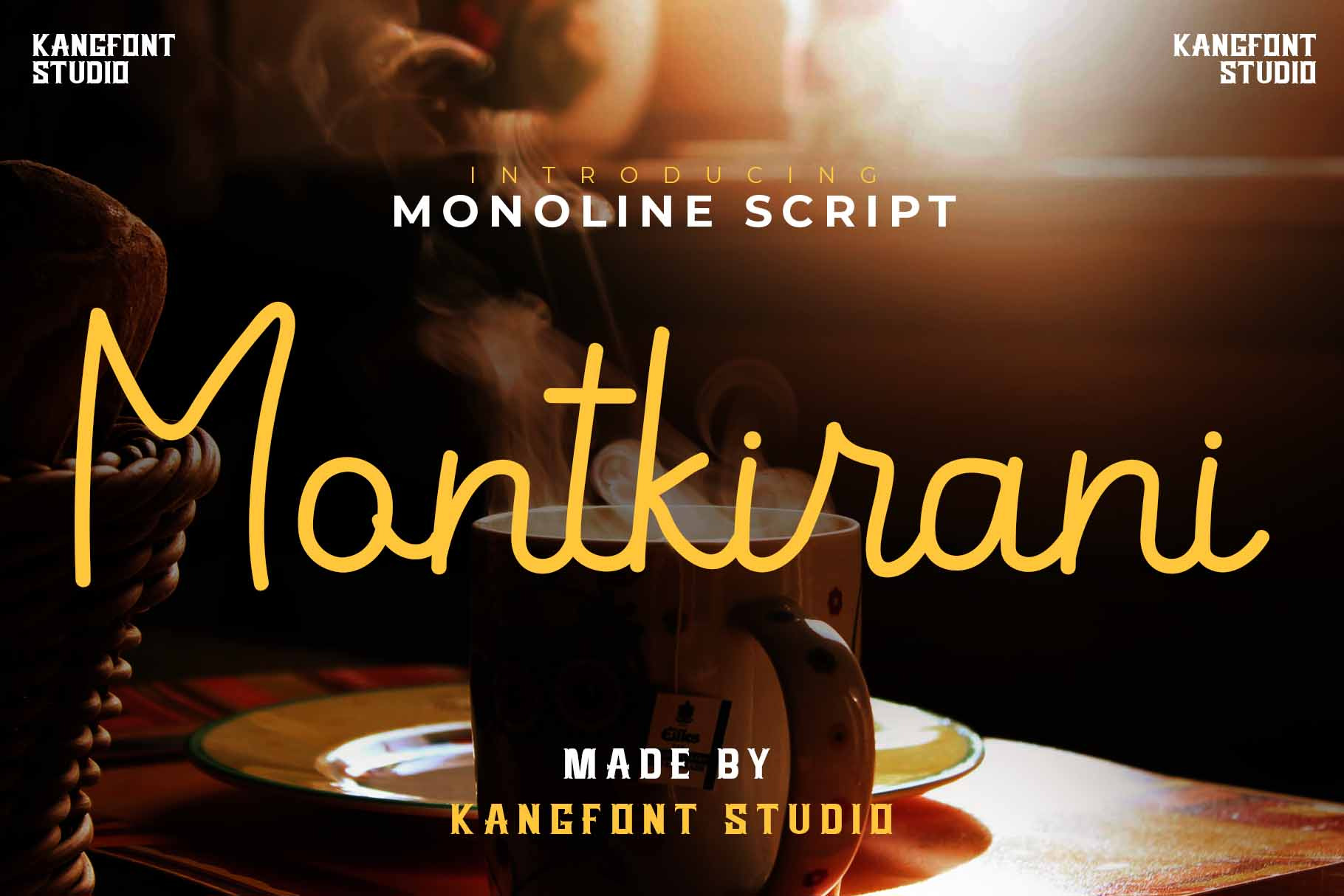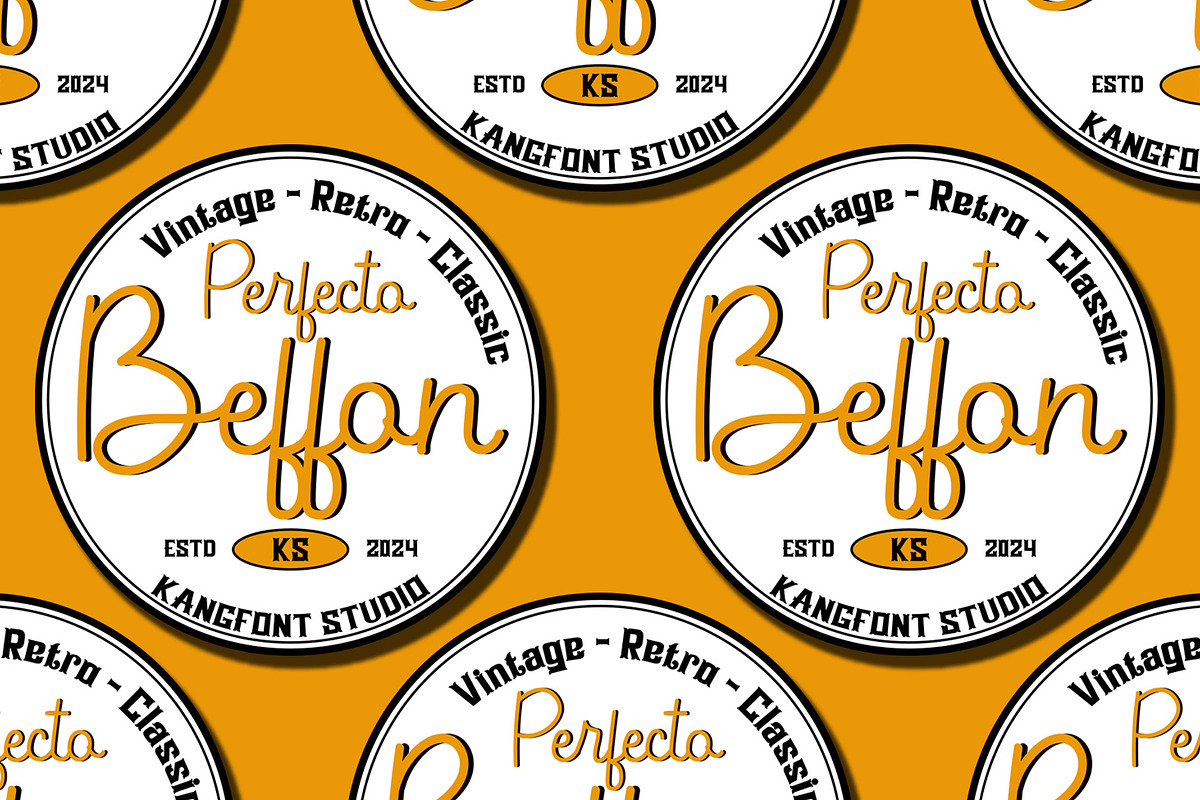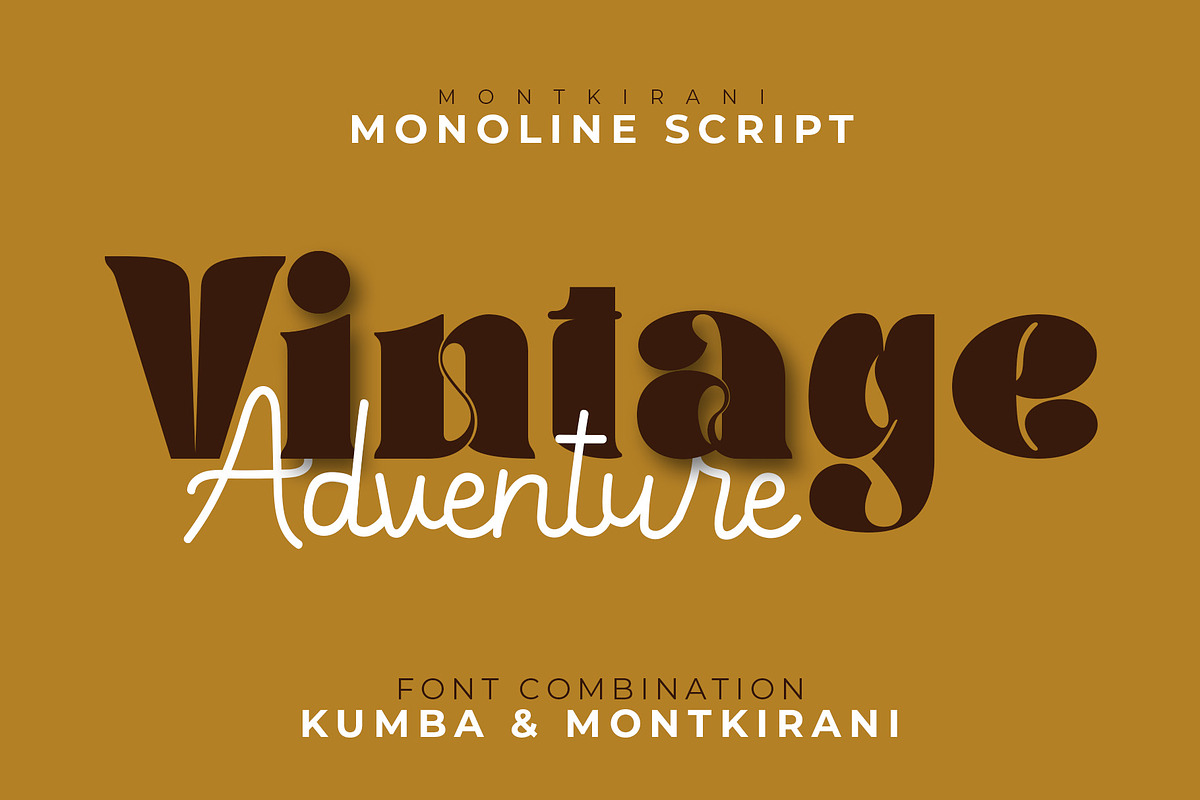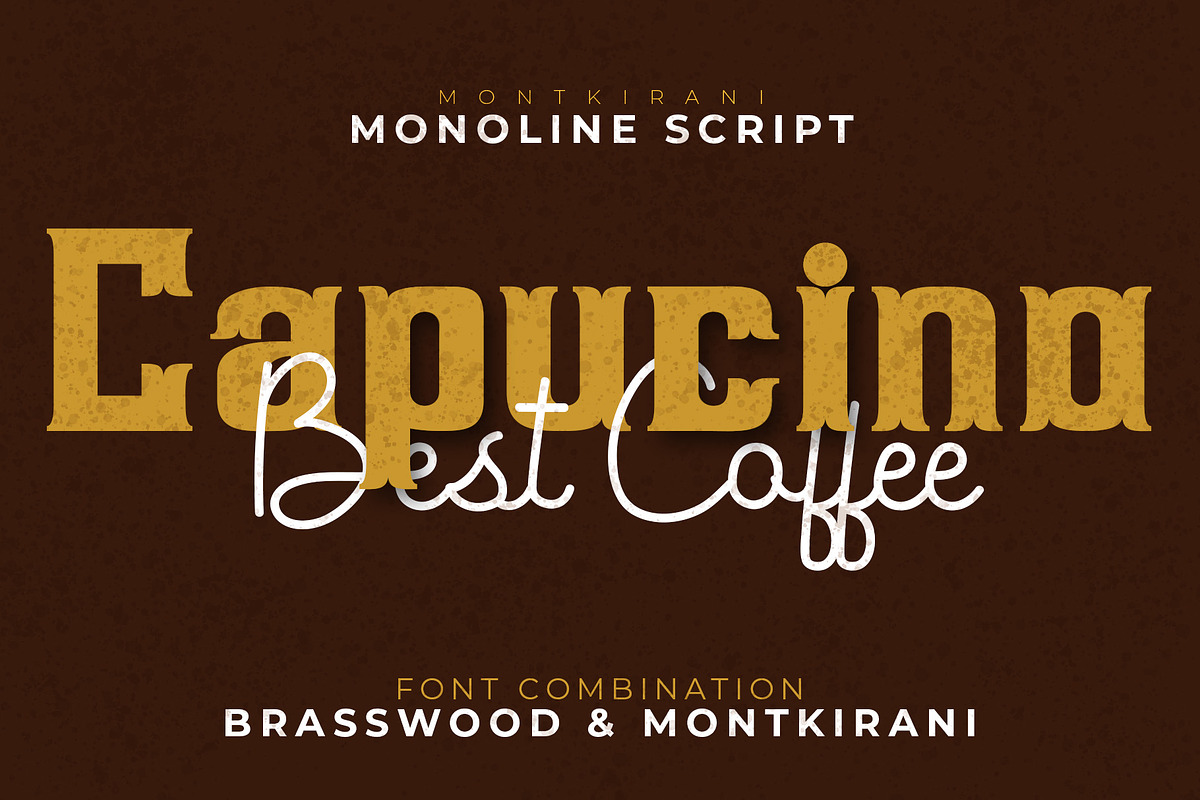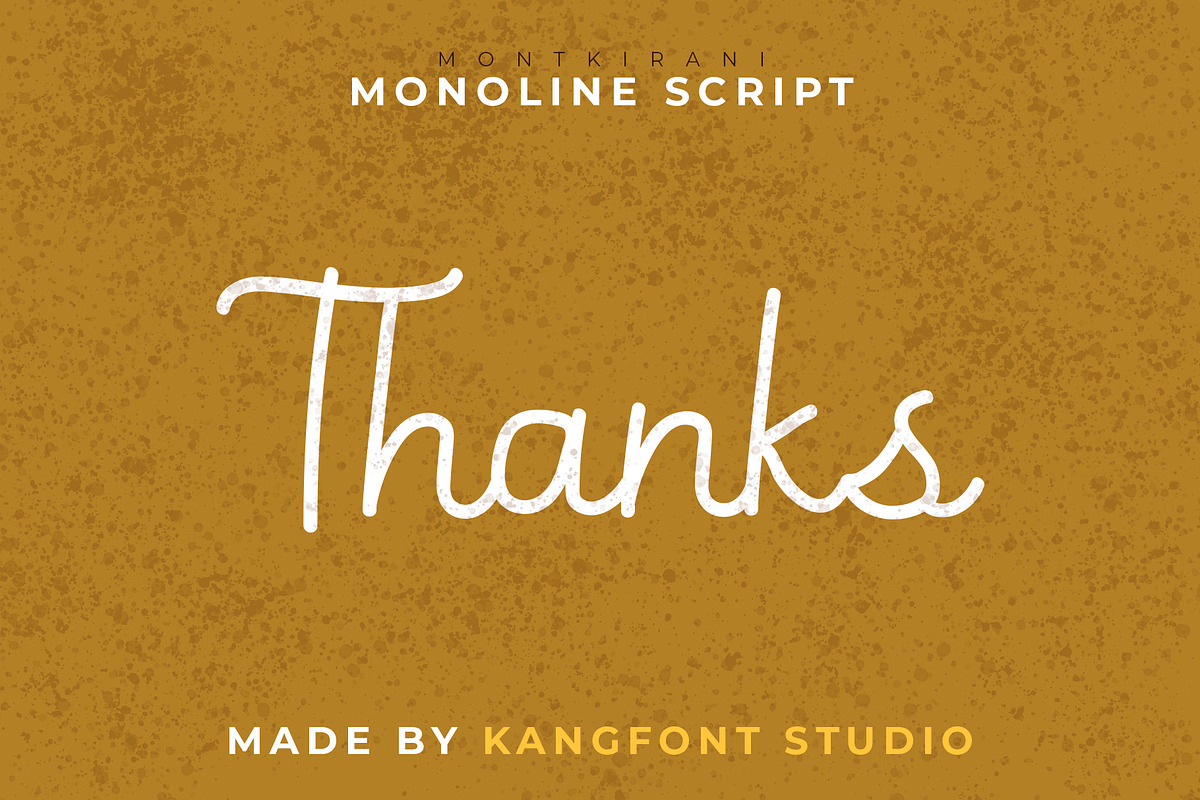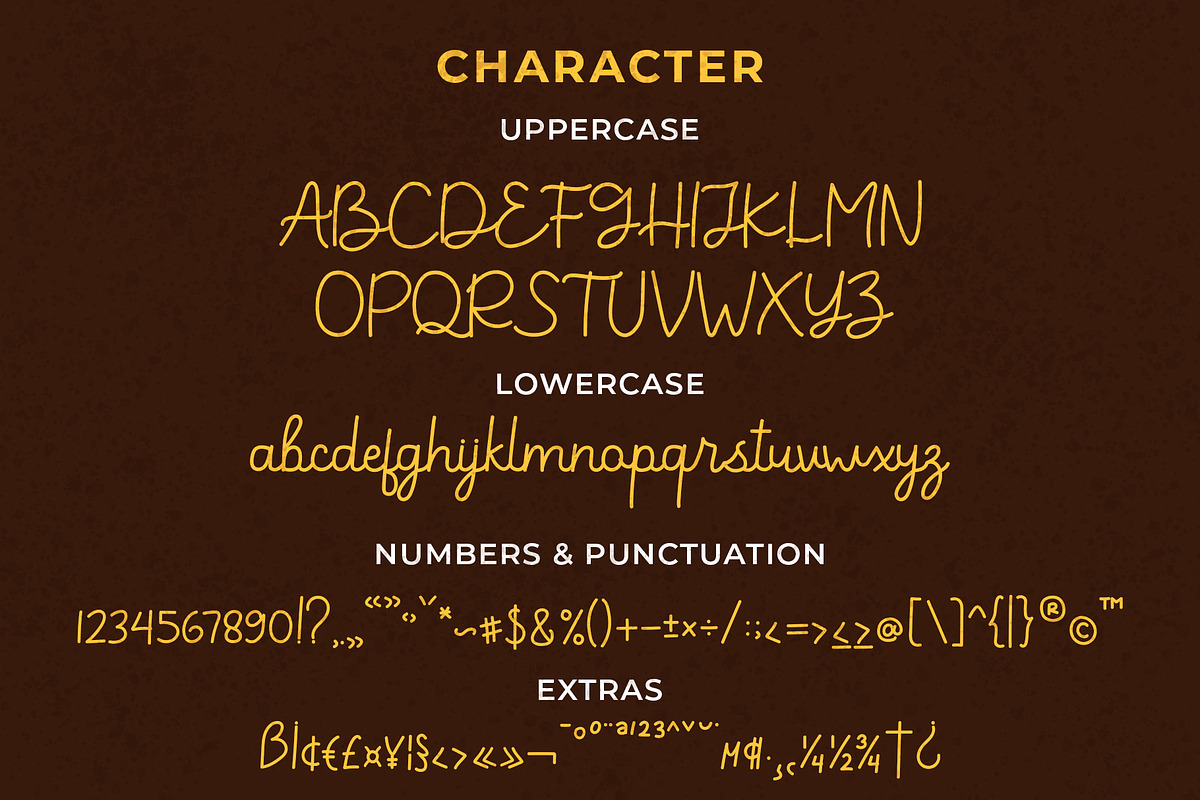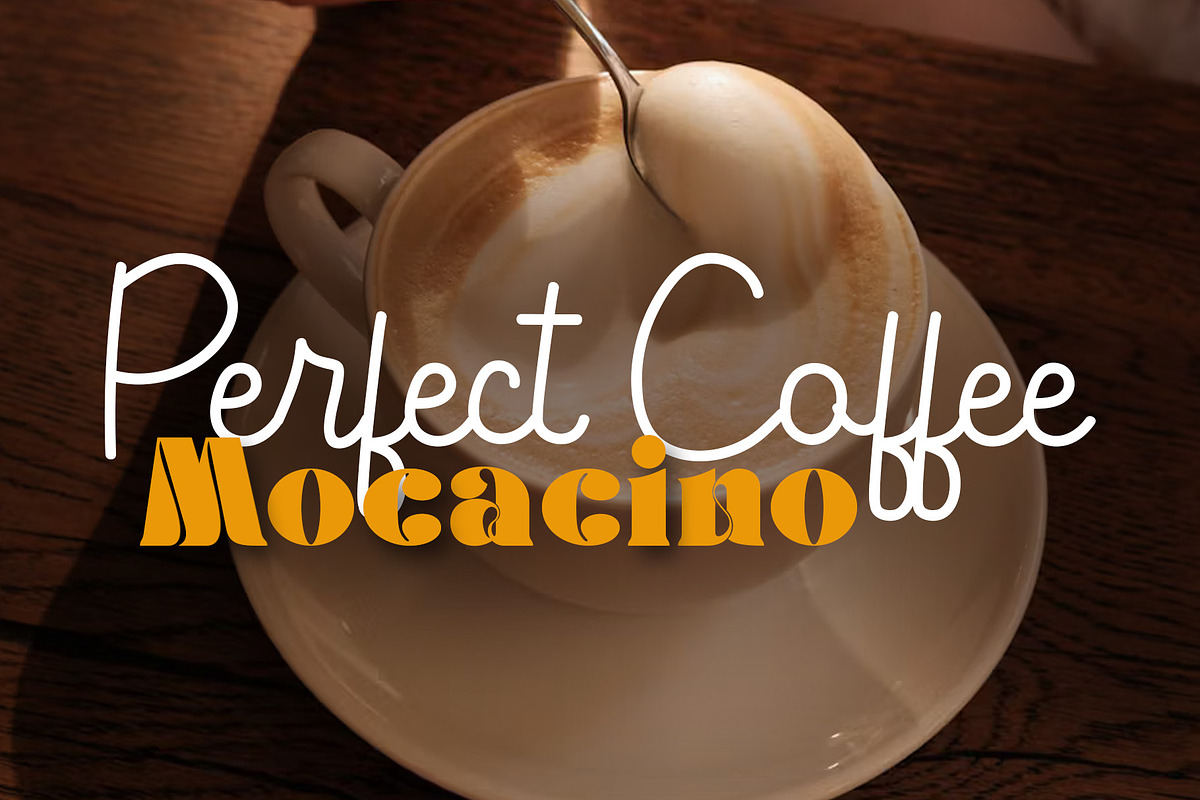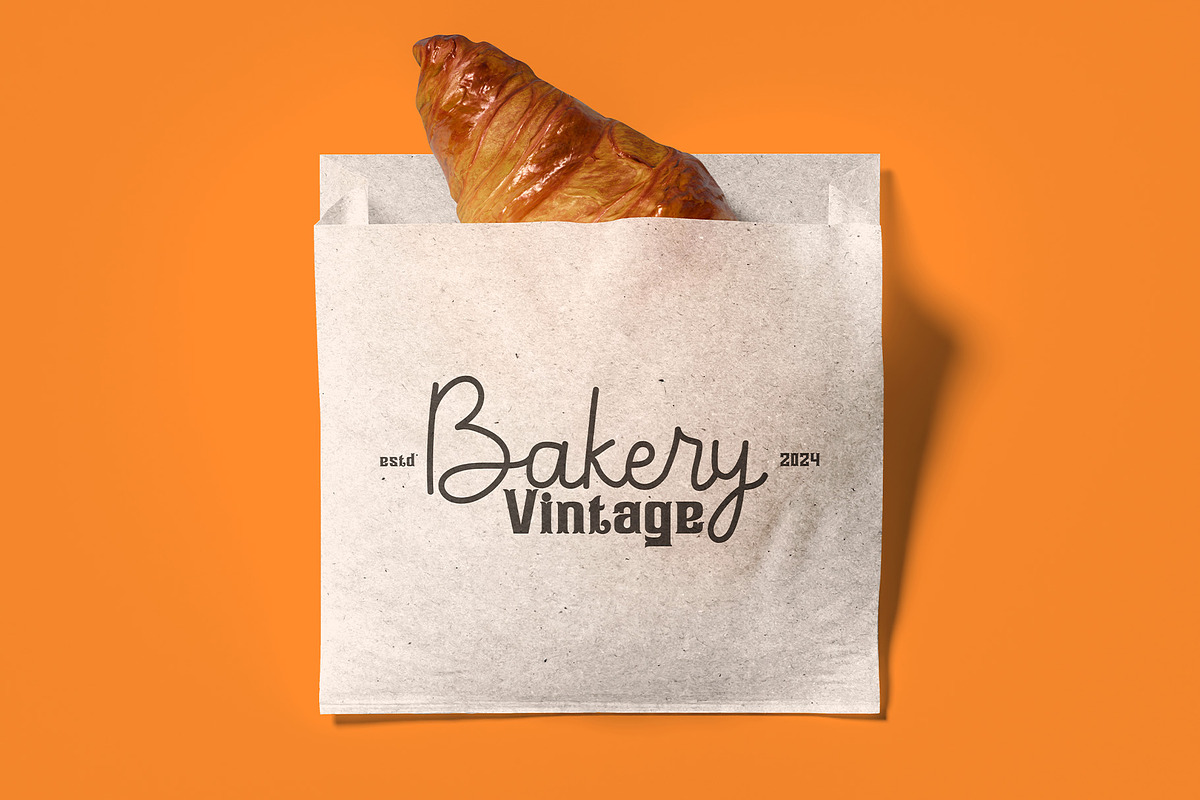
Montkirani - Monoline Script Font
Montkirani is a monoline script font designed with an elegant and simple touch, perfect for a variety of modern design needs. This font features smooth characters with a natural look, adding a friendly vibe to any application.